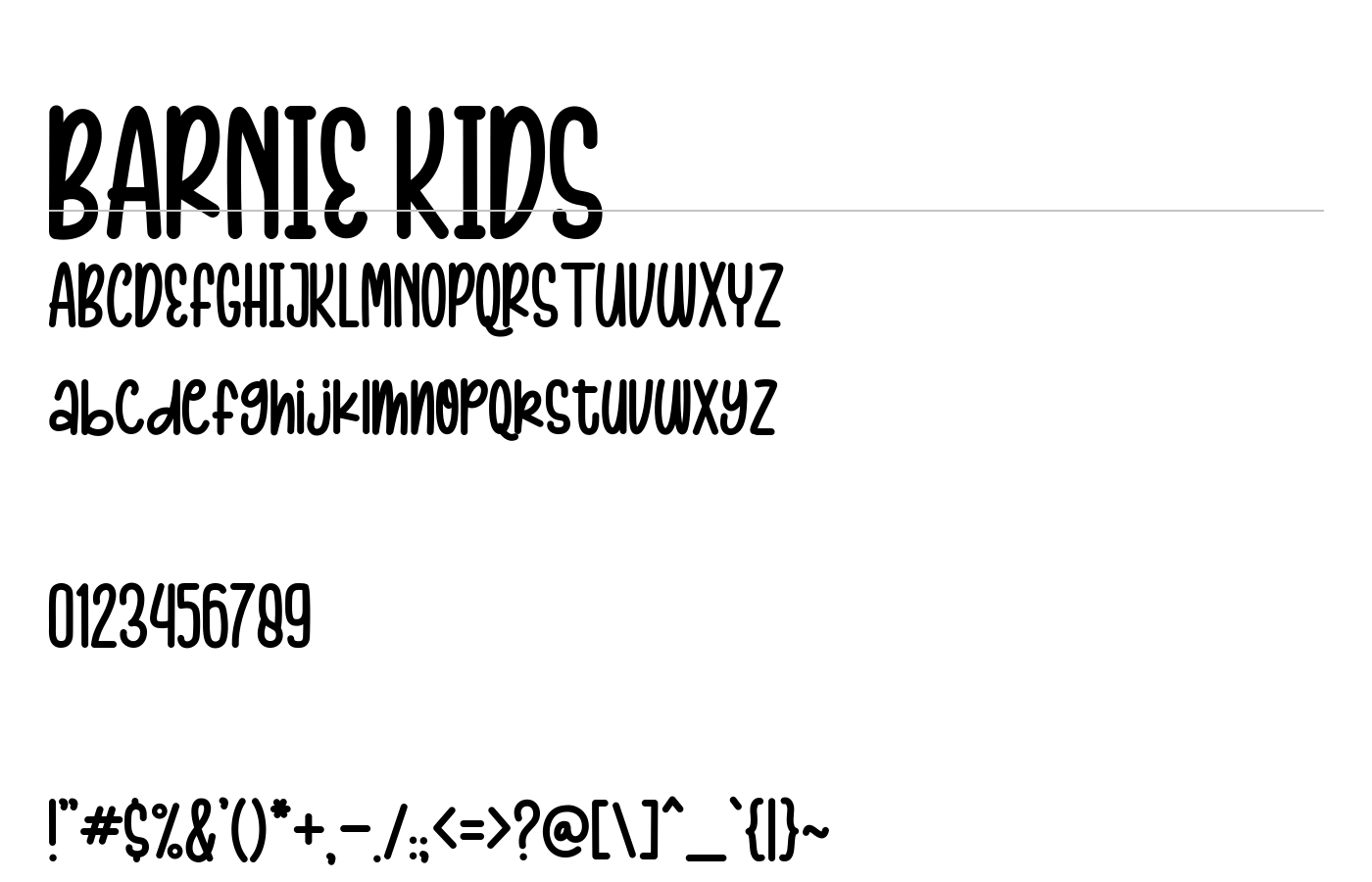
Barnie Kids is a playful, narrow sans serif font with a hand-drawn feel, characterized by its tall, rounded letterforms and uneven stroke widths that give it a lively, informal charm. Its whimsical style and casual vibe make it perfect for children's books, fun branding, and creative projects where a friendly and approachable tone is desired. This font works well in headlines and titles, adding personality and warmth to any design aimed at young audiences or lighthearted themes.
BARNIE KIDS Font
About BARNIE KIDS Font